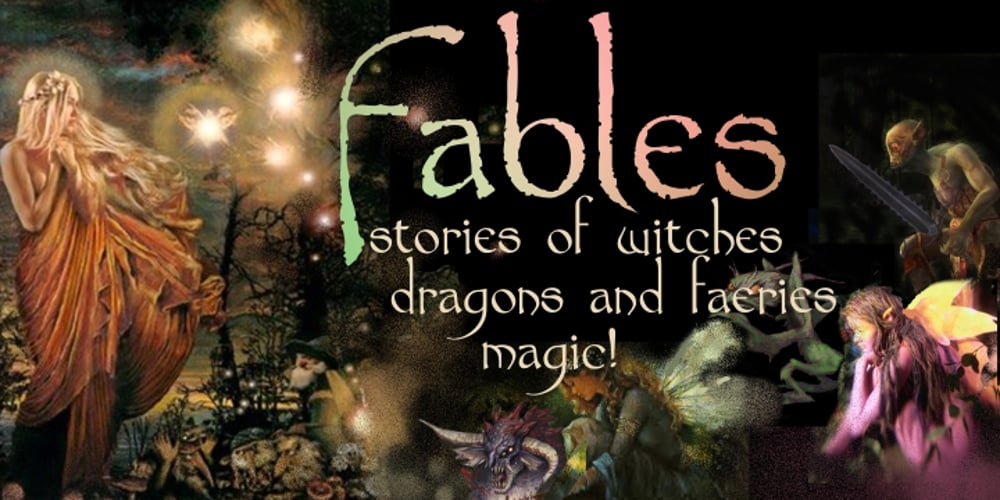
Fable
Fable font
Fable Font Family was designed by Anton Scholtz and published by Scholtz Fonts. Fable contains 2 styles and family package options. Fable is an elegant, hand-crafted typeface that evokes the magic of fantasy weddings, of castles and wizards, of dragons and dungeons. Among others it combines elements that are suggestive of Greek mythology, of runic scripts, of Scandinavian tales and of the stories of King Arthur. Difficult to categorise, Fable effectively combines features of uncial, calligraphic and script fonts. It will enhance the appearance of advertisements, wedding invitations, headlines and posters. It contains a full character set and is professionally letter-spaced and kerned.